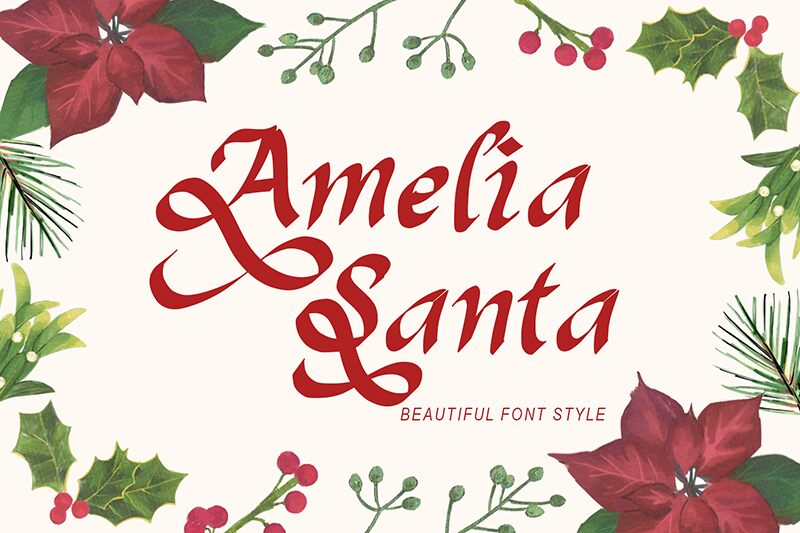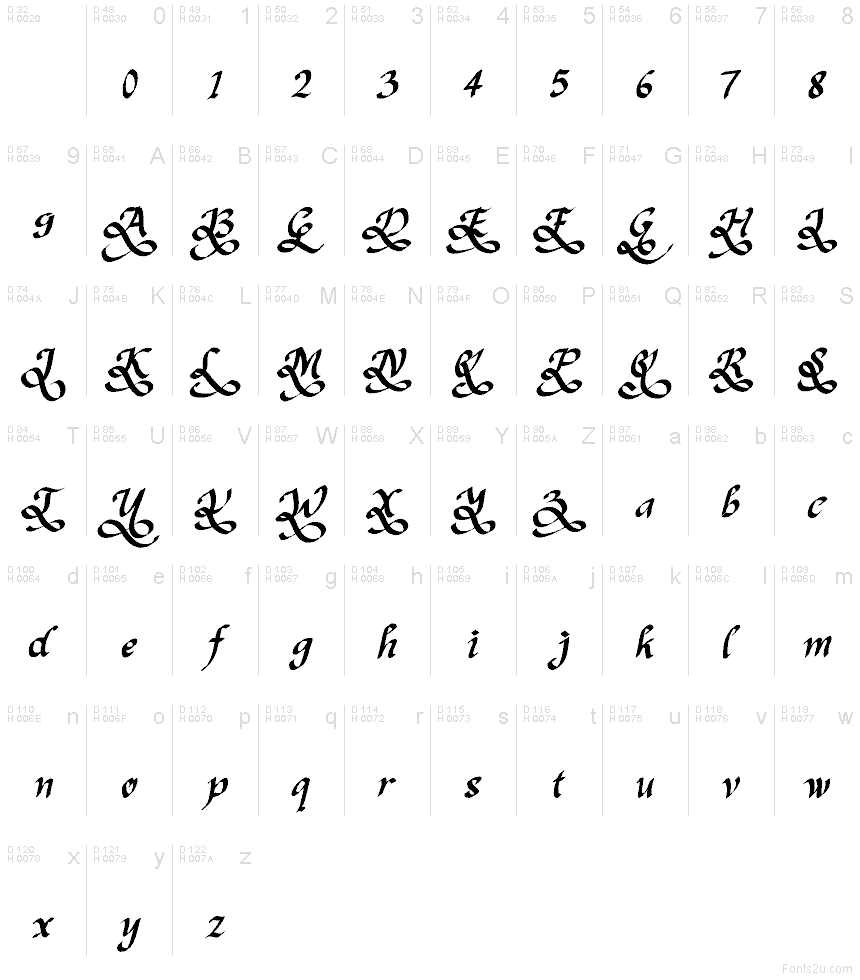
Amelia Santa font by Yoga Letter is a free Christmas script typeface that bottles up that cozy, old-world holiday magic. Its sweeping flourishes, inky texture, and slightly rugged strokes feel like they were brushed onto parchment beside a crackling fire. Letters curl and loop with a calligraphic flair that feels both festive and a little nostalgic, giving your text the warmth of hand-lettered greeting cards and vintage storybooks.
Using Amelia Santa, this free font shines on Christmas cards, gift tags, holiday invitations, seasonal logos, social media graphics, and warm storefront signage. The flowing rhythm and tight, textured forms add instant drama to short phrases and headlines, especially in larger sizes where the swashes can breathe. Pair it with a clean, simple sans serif for supporting text to keep layouts readable while Amelia Santa delivers the holiday charm.